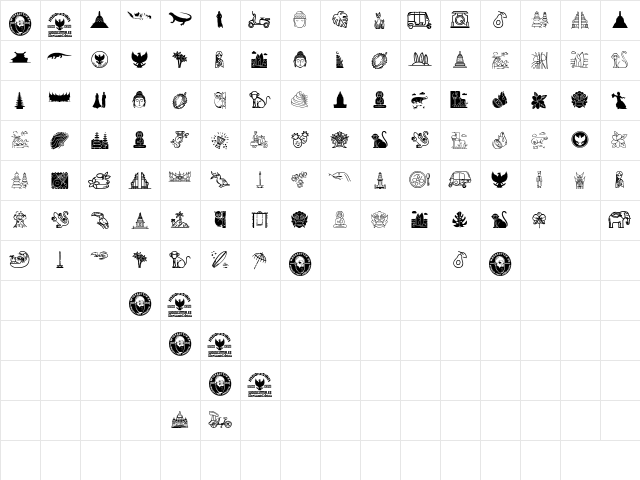
Indonesian Icons Regular
| Designer | Woodcutter Manero |
Design Context for Indonesian Icons Typeface
Indonesian Icons is a composed and adaptable typeface that performs quietly and consistently across a wide range of design contexts.